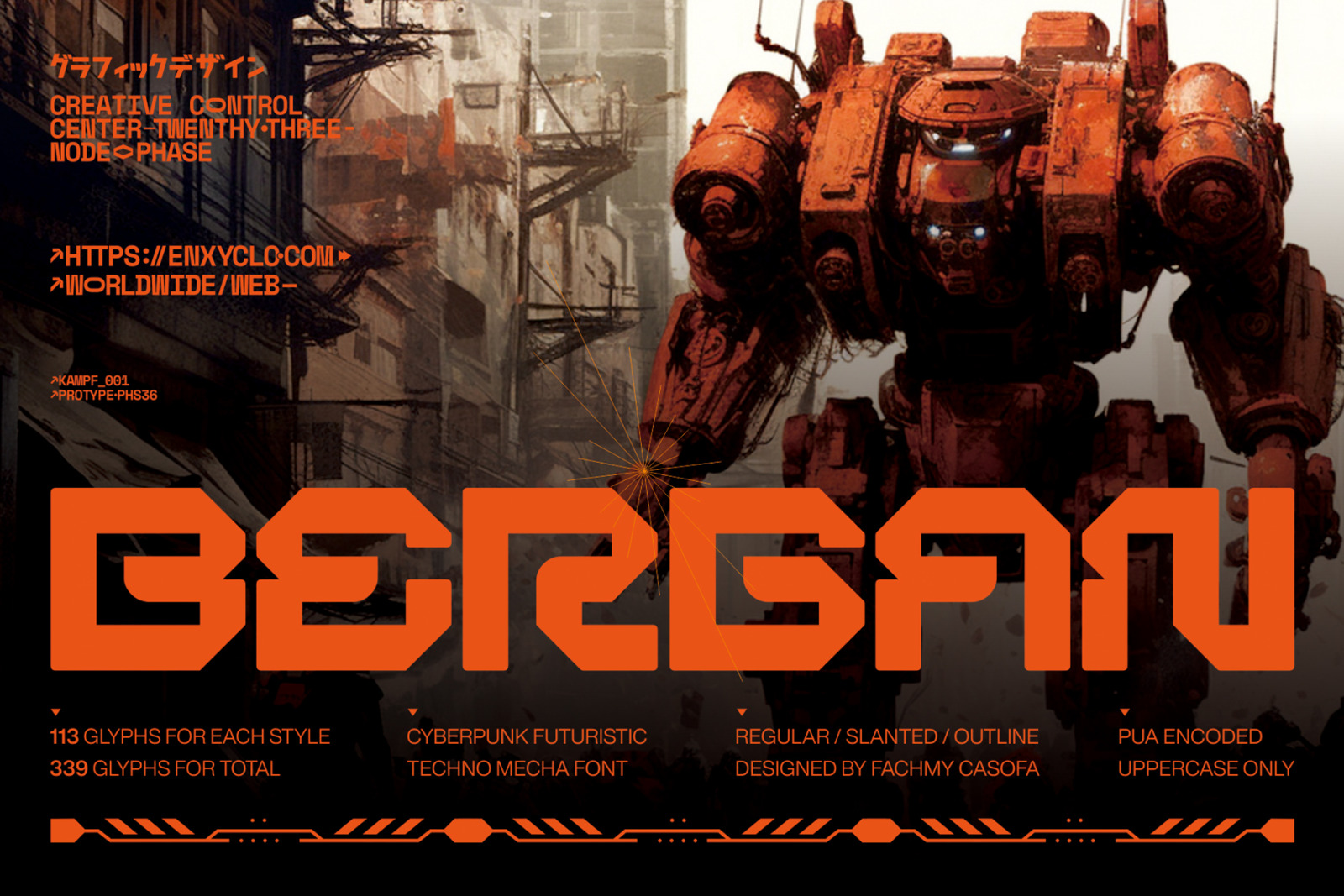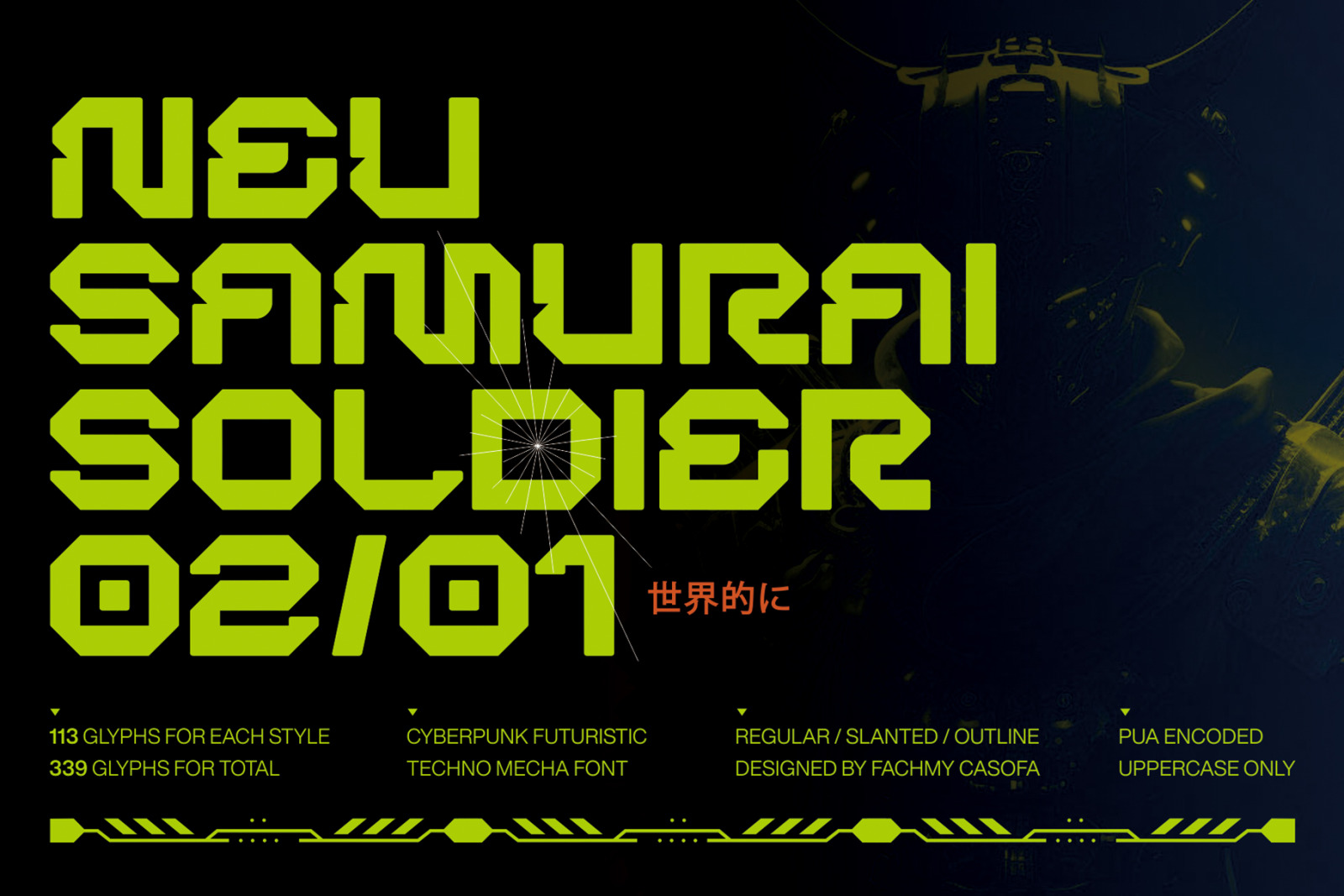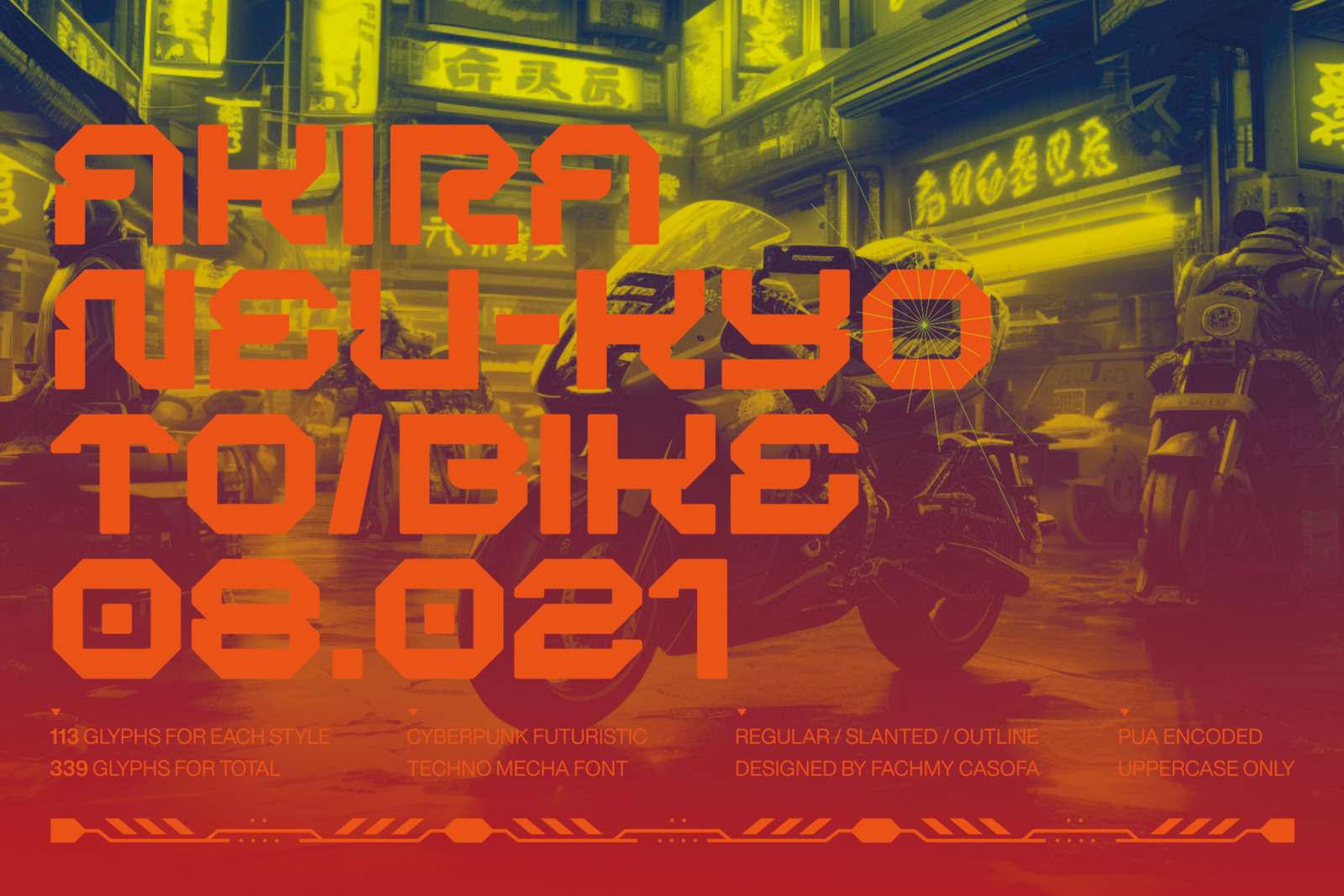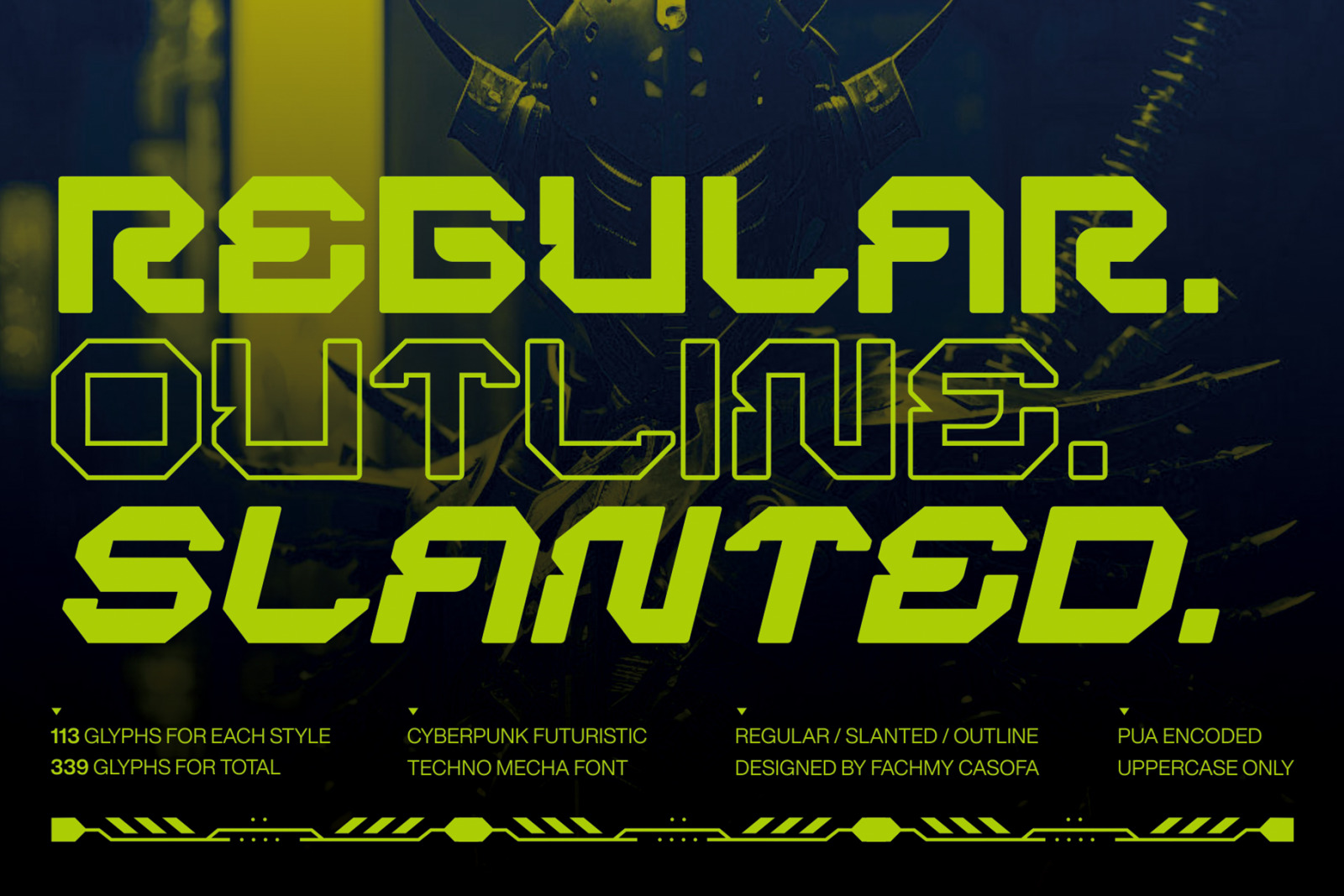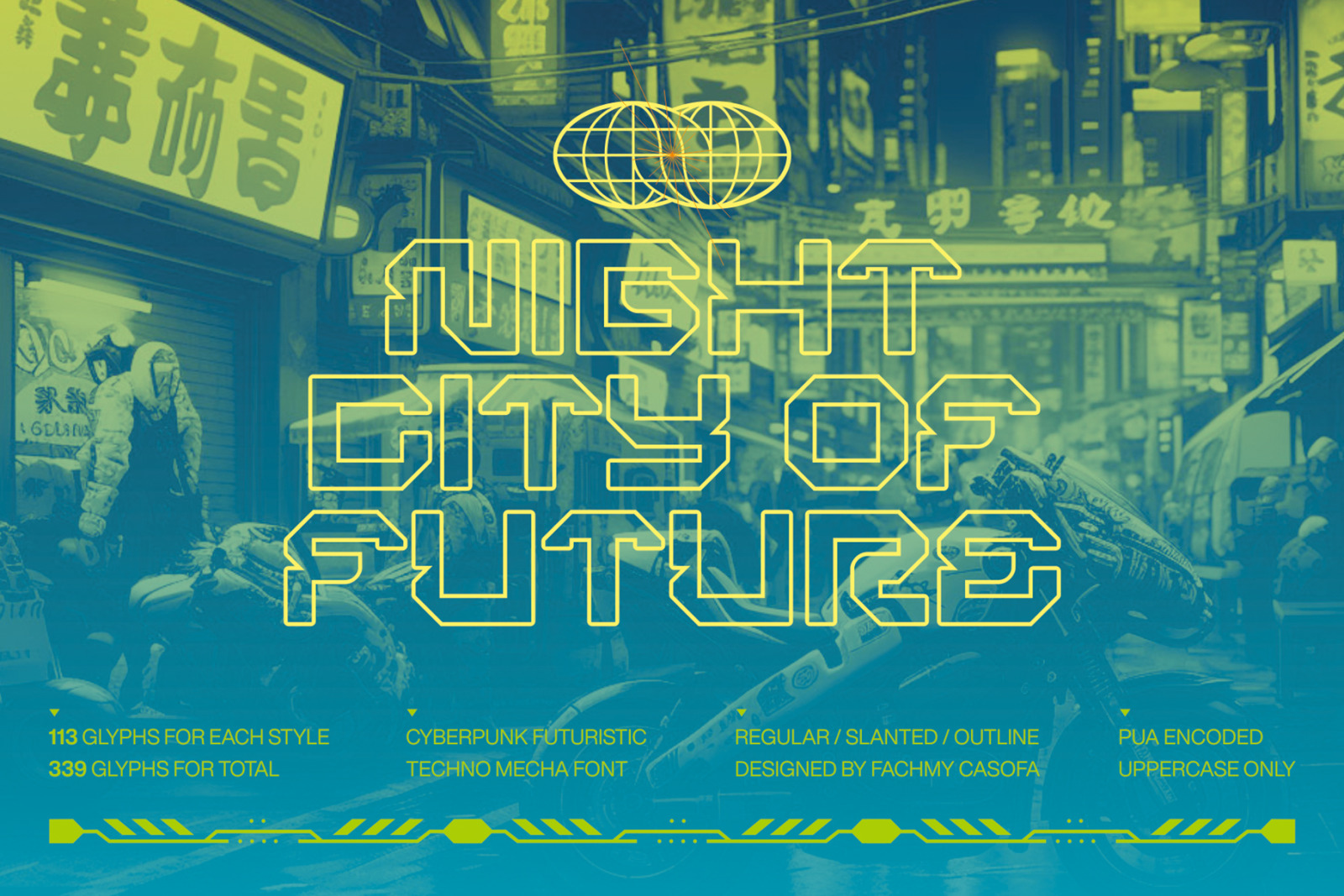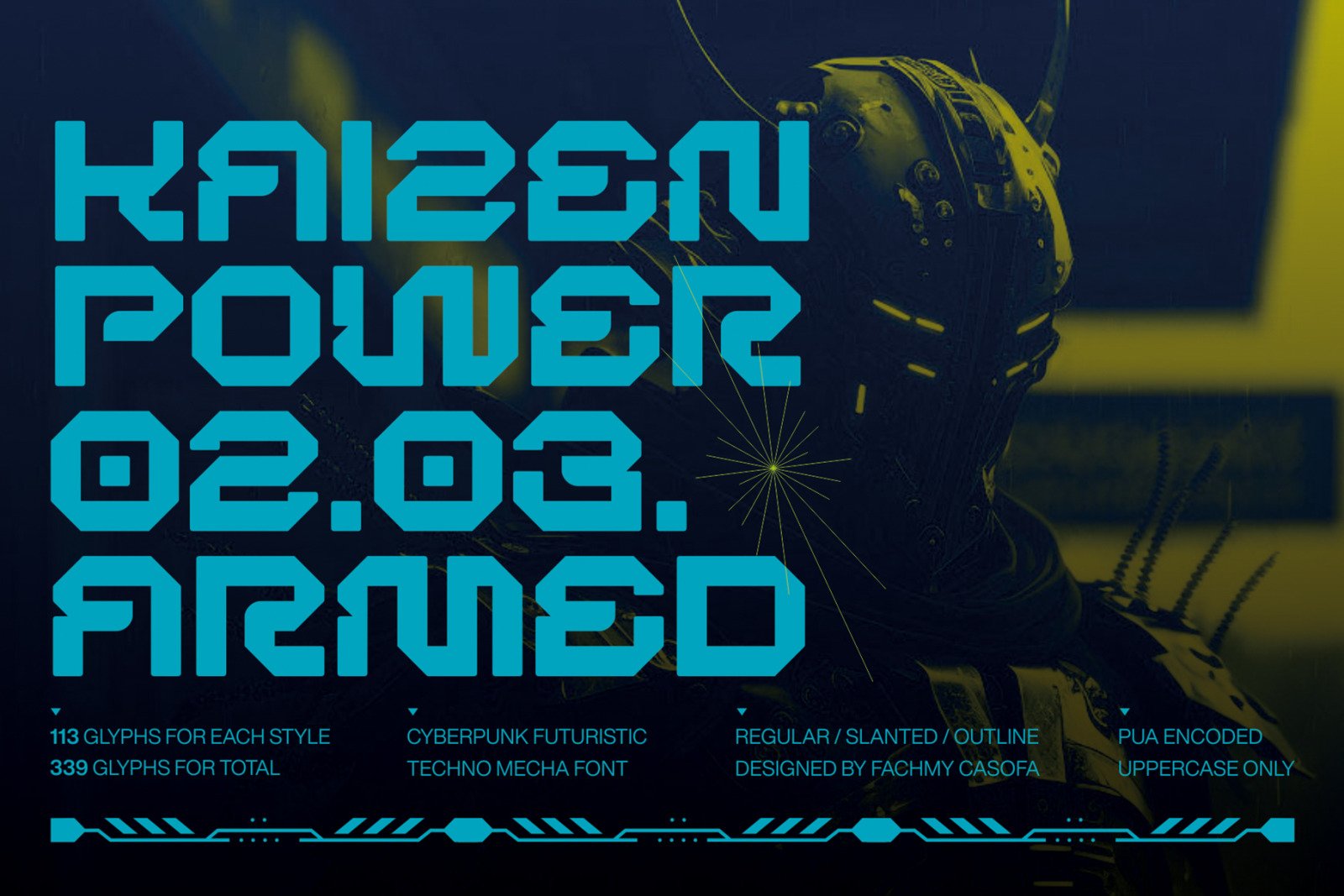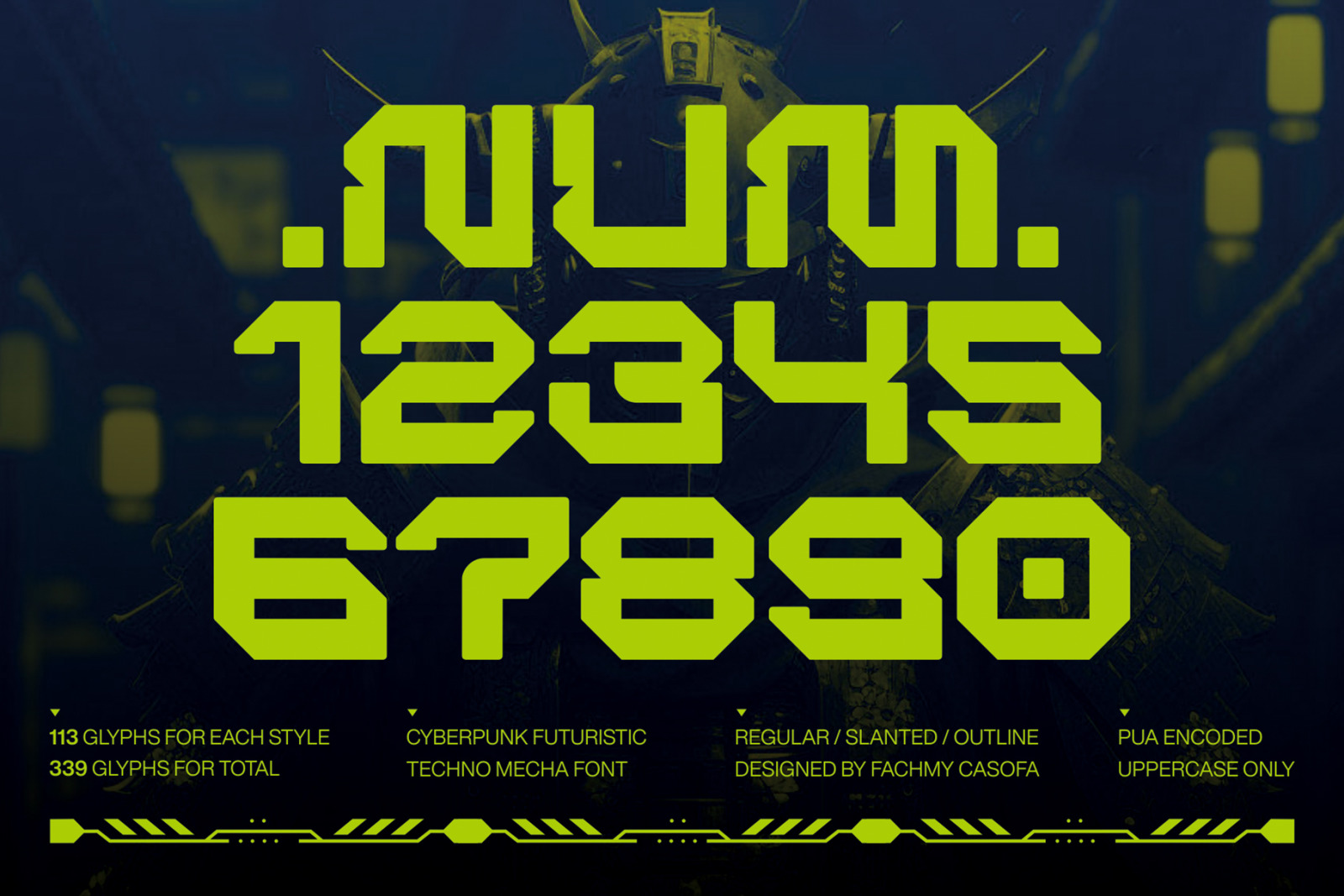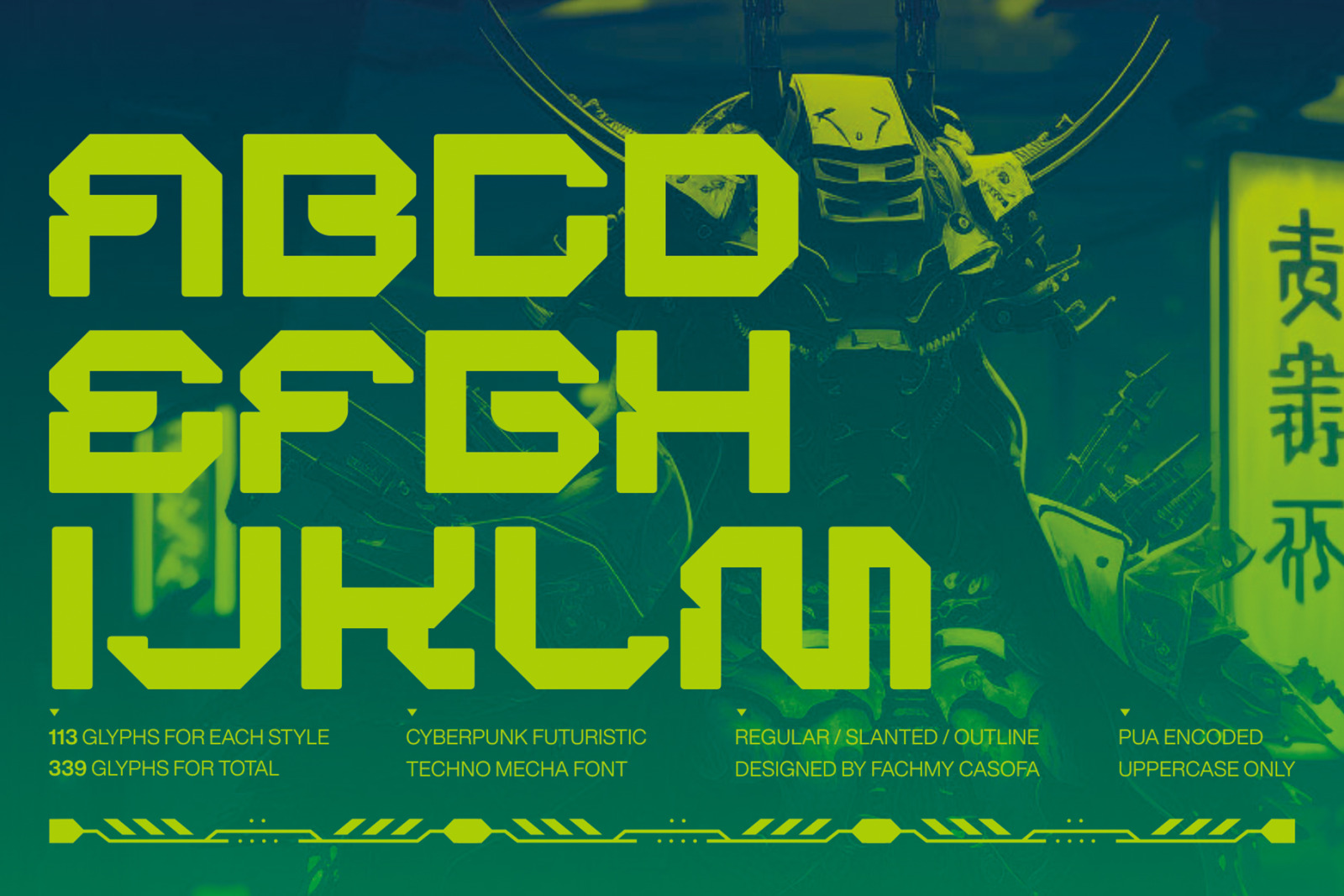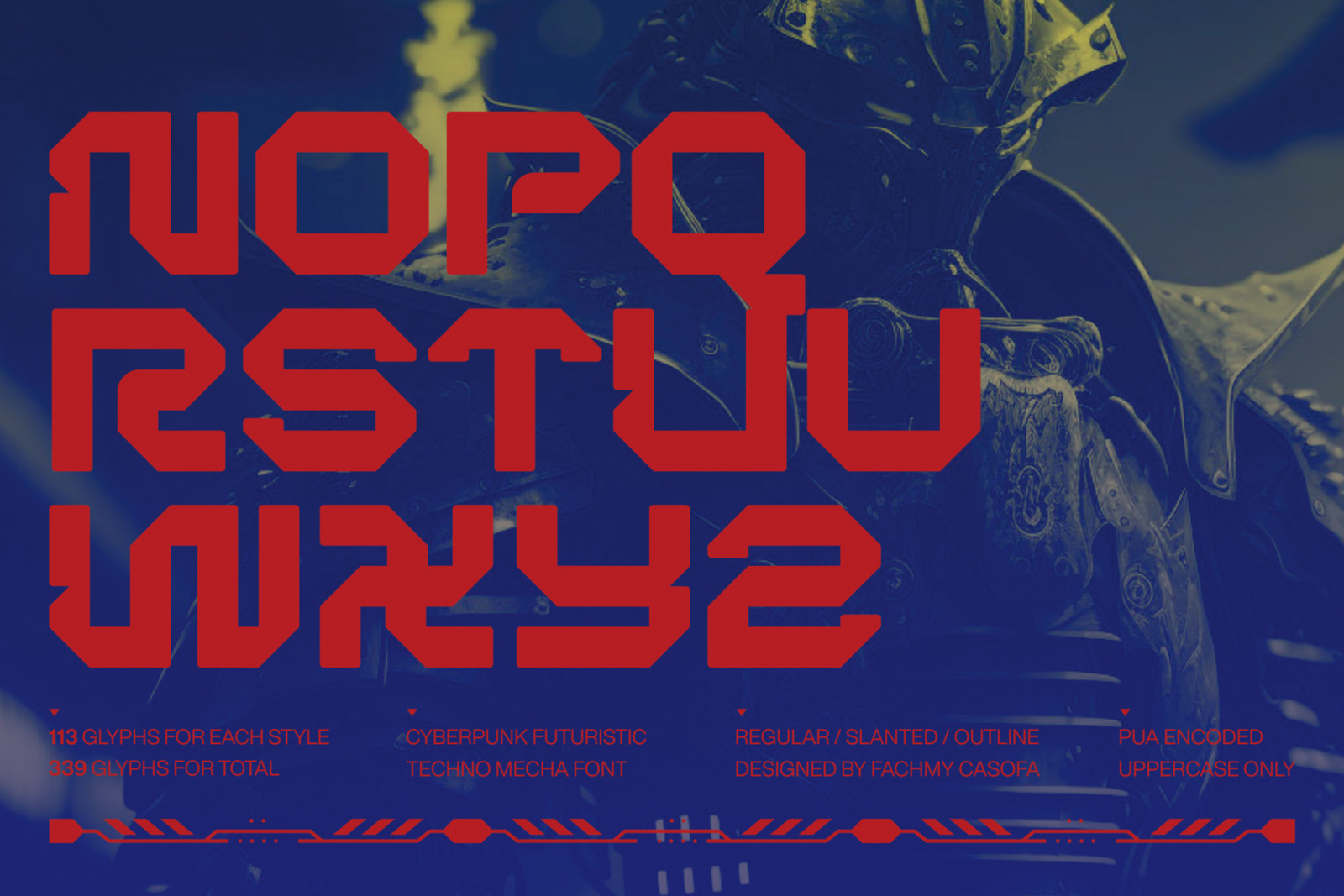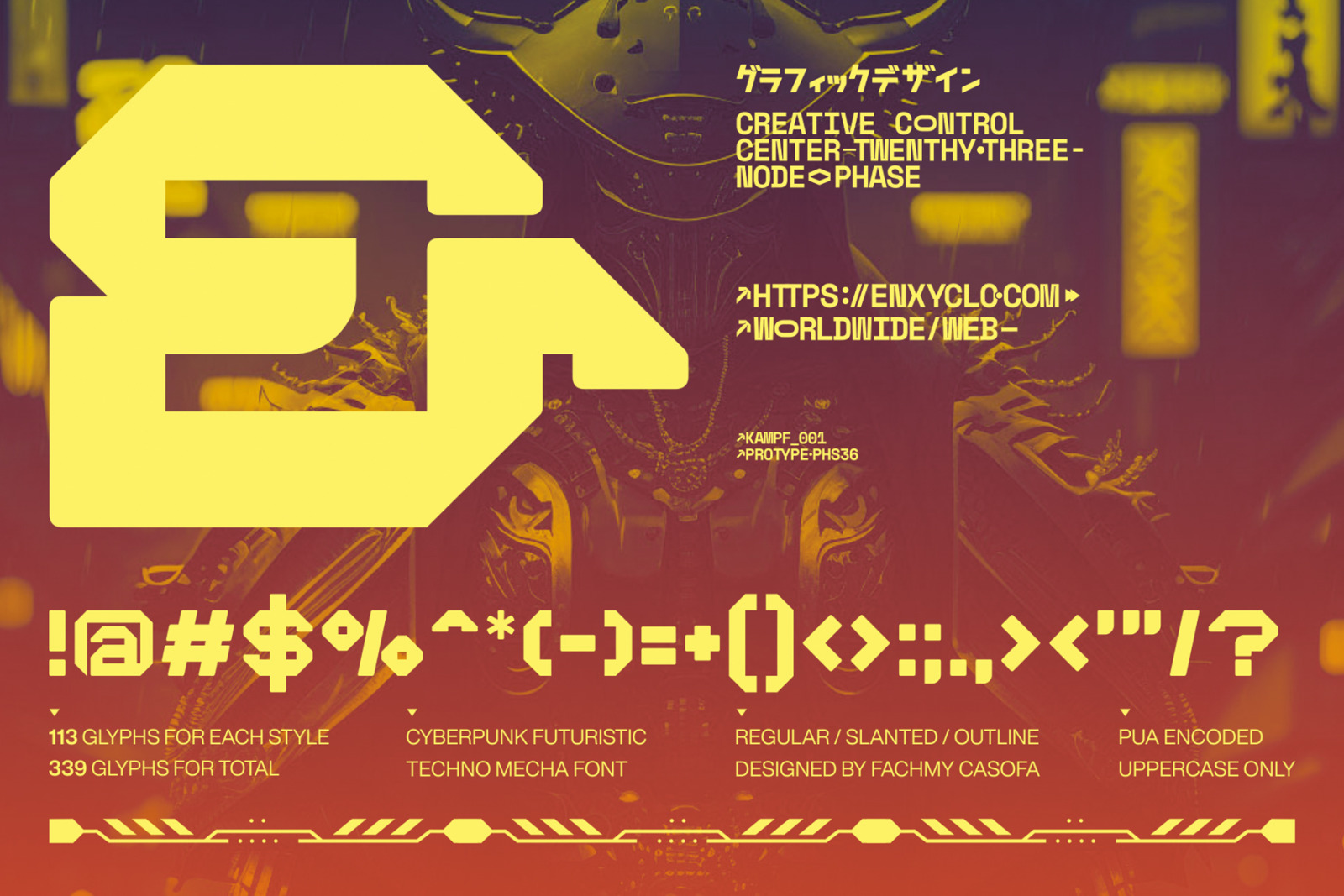
BERGAN - Futuristic Cyberpunk Sci-Fi Modern Display Font
BERGAN is futuristic display font. The design of typeface will make your project more powerful and inspiring. It is perfect for headline, billboard, magazines, website, titles, poster, branding, thumbnail, t-shirt design, street wear design, and creative logos, or any project that needs futuristic touch. With this beautiful futuristic display font, absolutely you can make your project stand out from the rest. See the previews above to get some inspiration on how to use them.
- 3 Styles: Regular, Outline & Slant
- Contains 113 Glyphs for Each Style (Total: 339 Glyphs)
- Uppercase, Numeral, Punctuation & Symbol